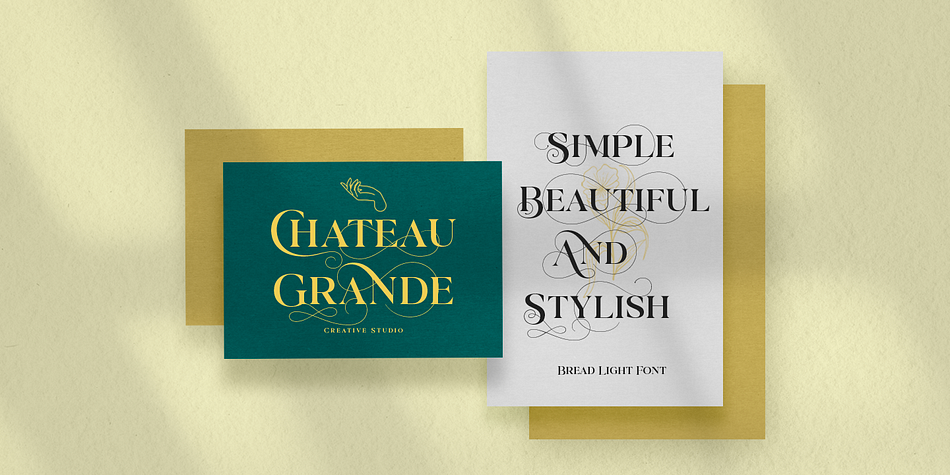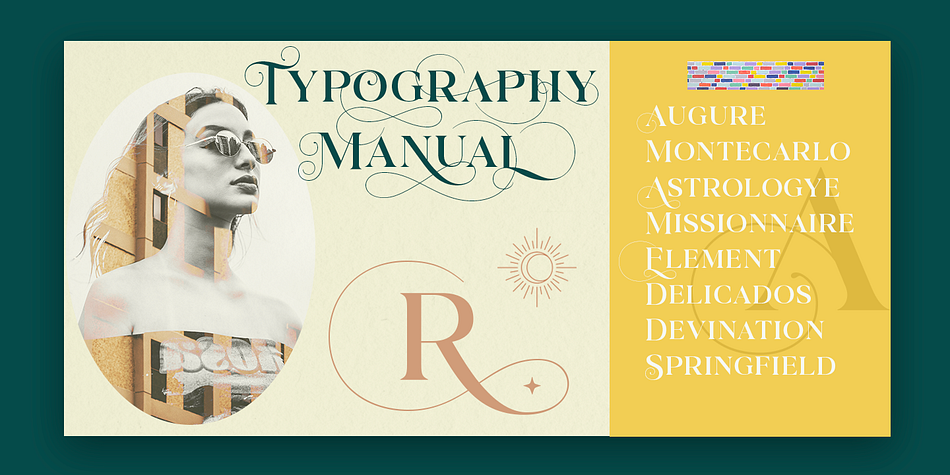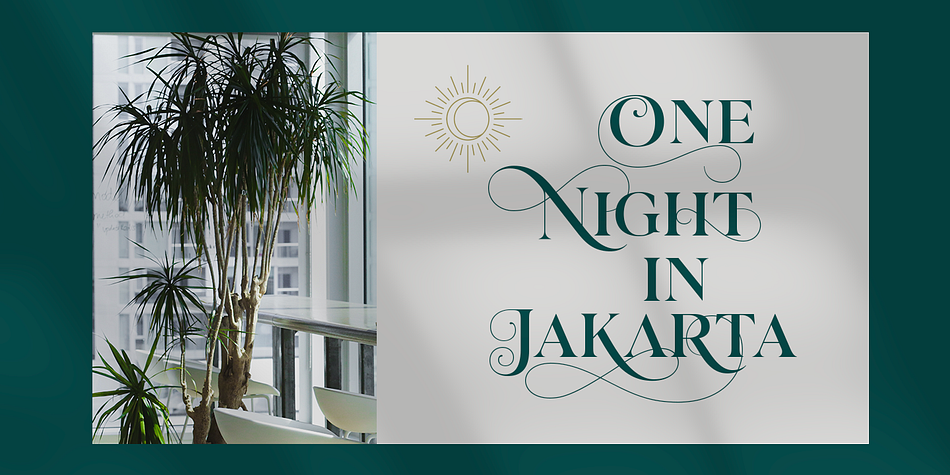
Bread Light
Bread Light is a display serif font family published by Great Studio.
Bread Light is a serif display font featuring classic glyphs developed in a modern and classy style. This font idea has various references, from classic to modern, making it the perfect typeface with a distinct and contemporary look. This font offers a broad set of options for creating headlines, logos and headlines. It’s perfect for books, magazines, advertising, editorial, packaging, quotes, branding and more.
Bread Light completes your access to OpenType features to access a large selection of alternative letters and ligatures, a choice of letters you like from various upper and lowercase letters for a luxurious and distinctive look.